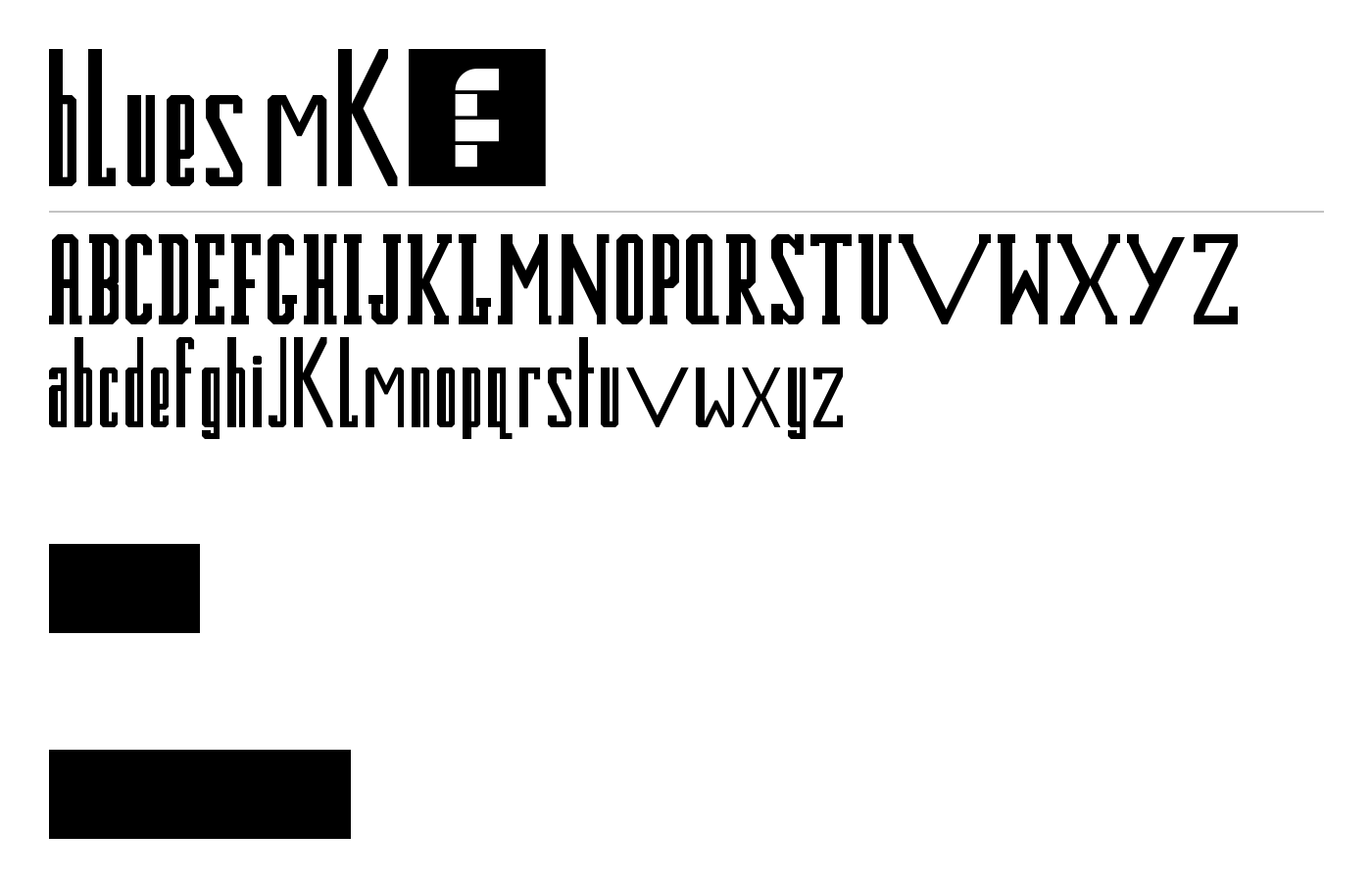
Blues mk2 is a condensed, tall sans serif font with a distinctly geometric and angular design that conveys a modern, industrial vibe. Its sharp edges and uniform stroke widths create a clean and striking appearance, making it ideal for headlines, logos, and branding where a bold, edgy, and contemporary look is desired. This font works especially well in creative and urban contexts that benefit from its unique character and strong visual impact.
blues mk2 Font
About blues mk2 Font